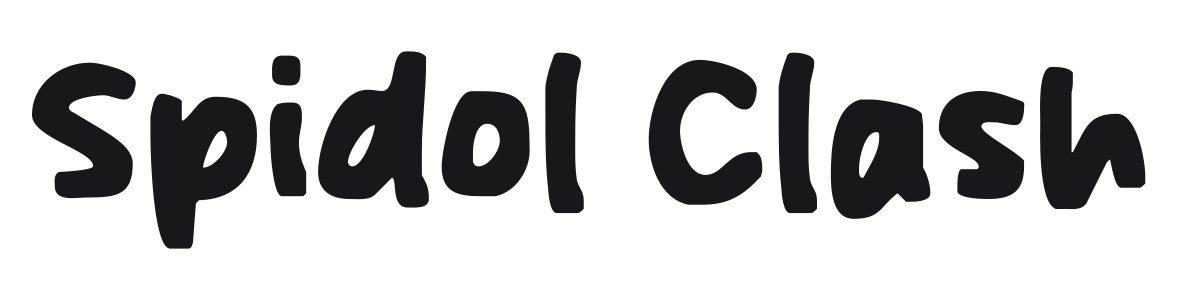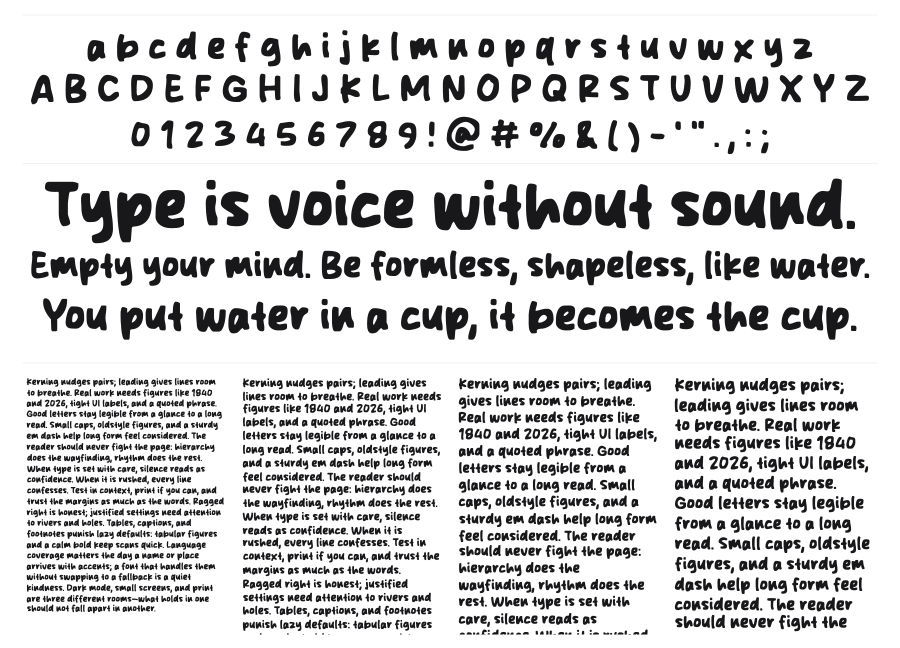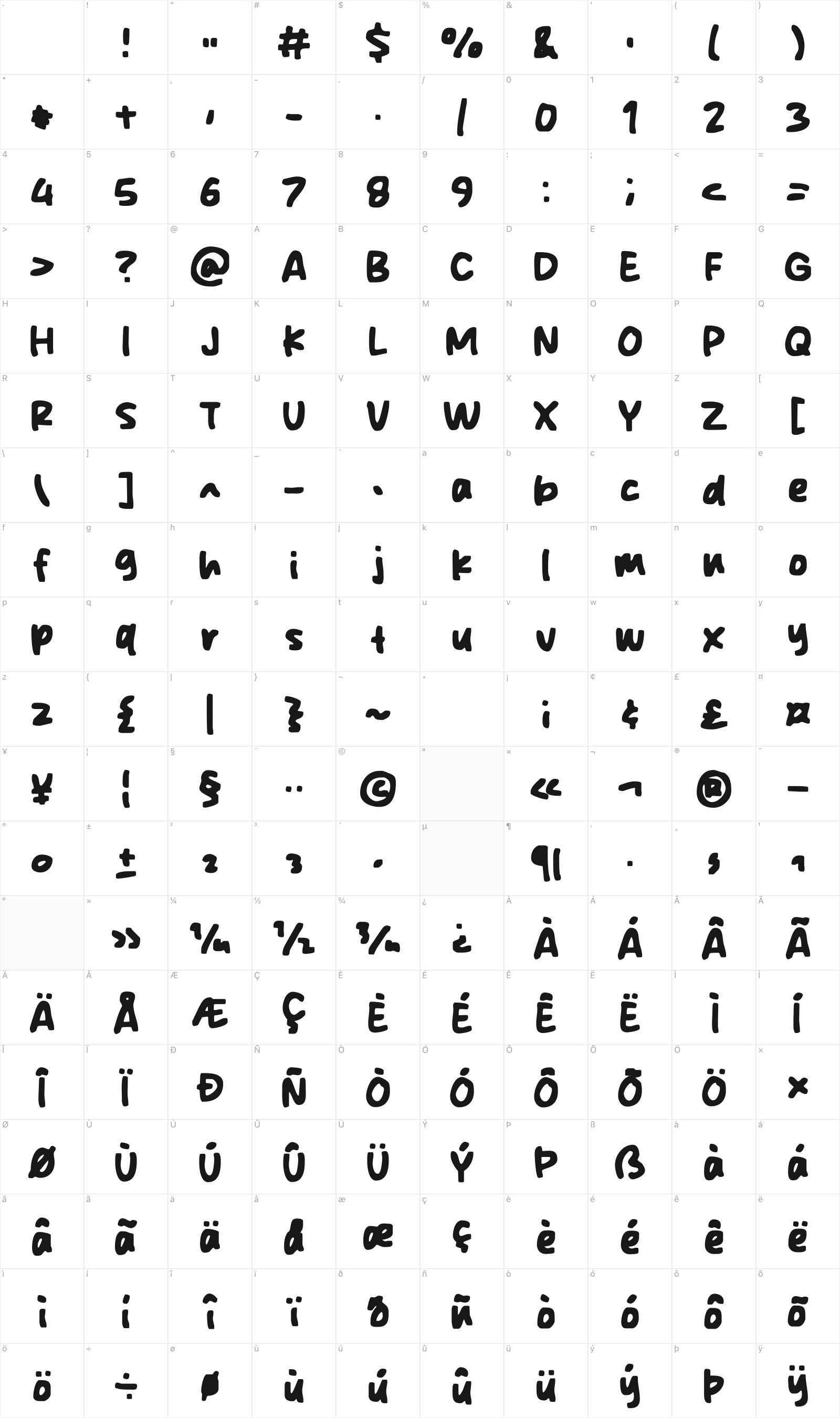
Spidol Clash
Spidol Clash is a bold, marker-style casual script with chunky rounded strokes and an expressive hand-lettered energy. The slightly uneven outlines and ink-bleed quality give it an authentic handmade feel without sacrificing readability at display sizes. It carries the spirit of comic lettering and street signage.